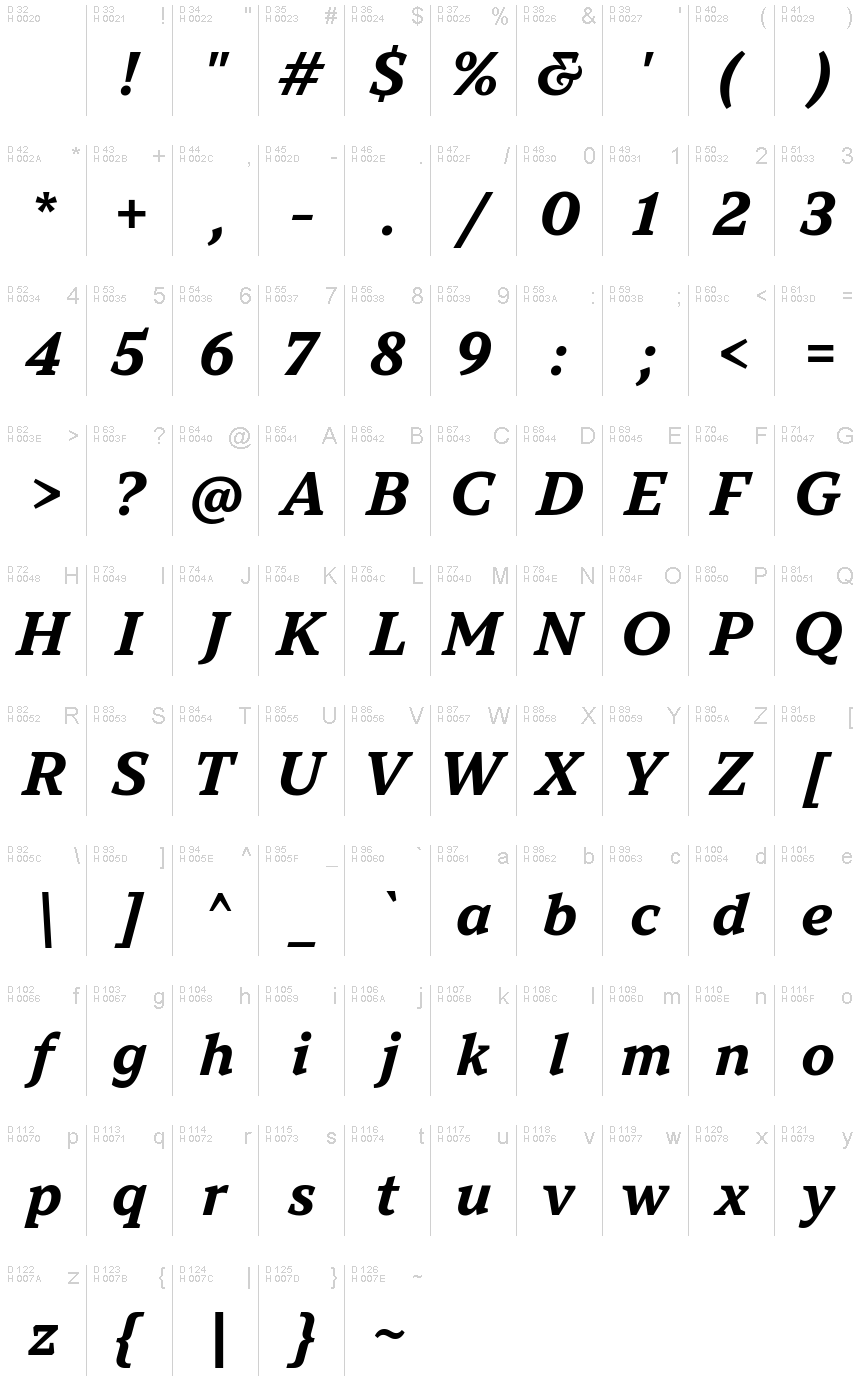
TT Norms Pro Serif Trl Bd It
TT Norms Pro Serif font captivates with its striking blend of modern sophistication and classic charm, crafted expertly by TypeType Foundry. Its substantial weight adds a commanding presence, making it perfect for headlines and focal text. The font's graceful serifs enhance its visual appeal, lending a sense of elegance while maintaining readability.
Ideal for branding, editorial design, and marketing materials, TT Norms Pro Serif stands out in both print and digital formats. Its adaptable nature makes it well-suited for everything from luxurious invitations to contemporary web layouts. Embrace this unique typeface to elevate your design projects with its distinctive character and refined aesthetic.